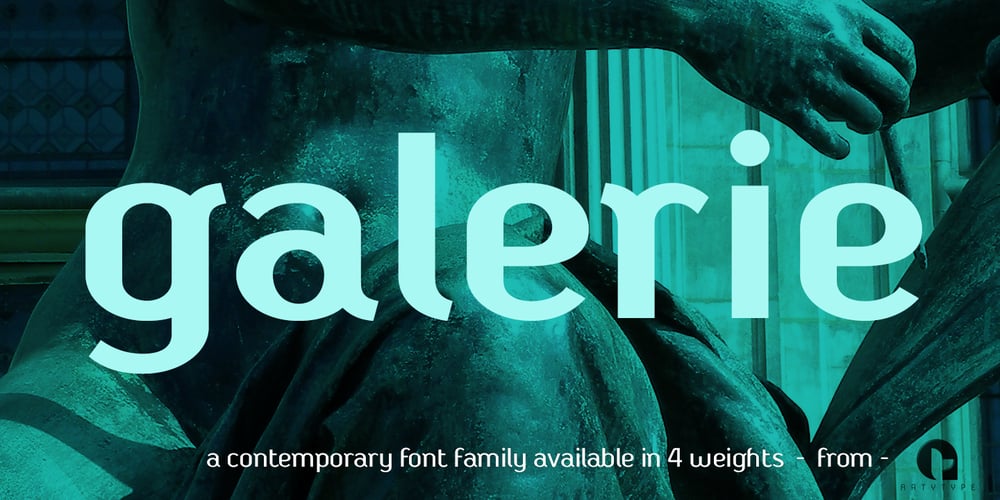
Galerie
Galerie font
Galerie Font Family was designed by James Marsh and published by ArtyType. Galerie contains 4 styles and family package options. Incorporating a certain Gallic ‘je ne sais quoi’ Galerie is a chic & stylish sans serif, though you’ll notice some short tails with angled terminals acting rather like serifs, lending a sophisticated characteristic to its balanced proportions. Galerie’s large x-height makes it a very legible font family, available in 4 weights: Thin, Light, Medium and Bold. See also the condensed sister family Galerie 2.